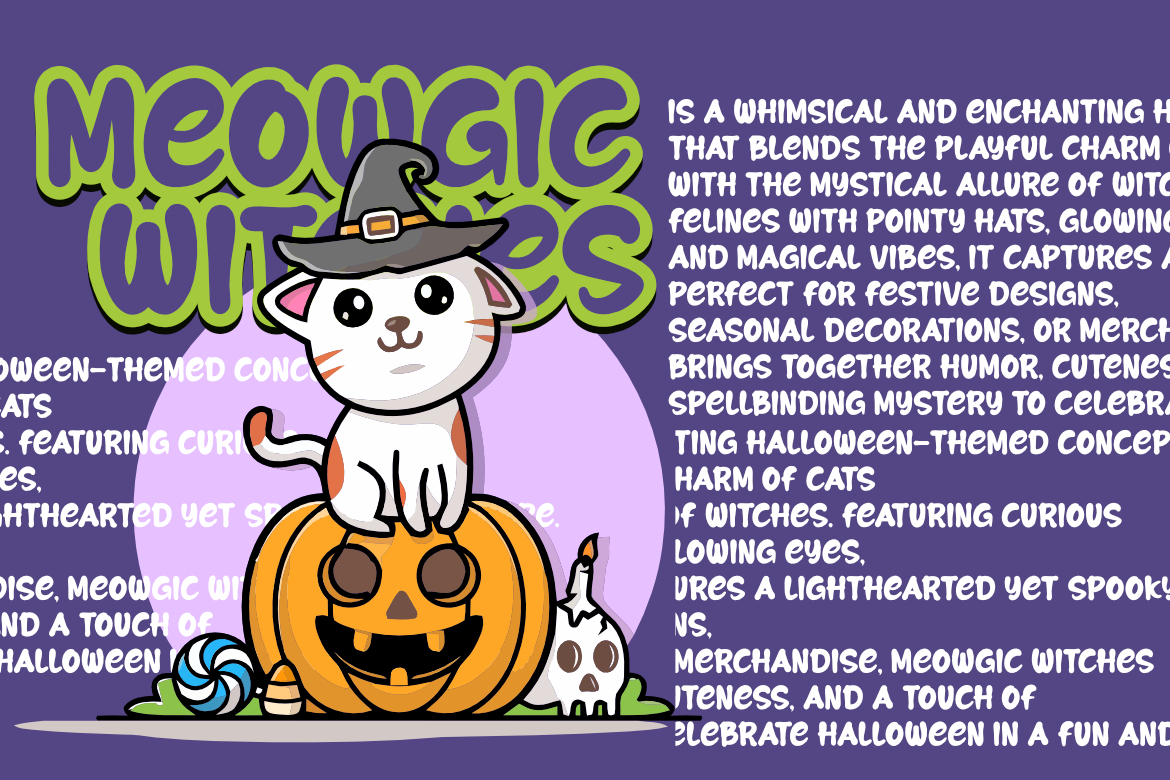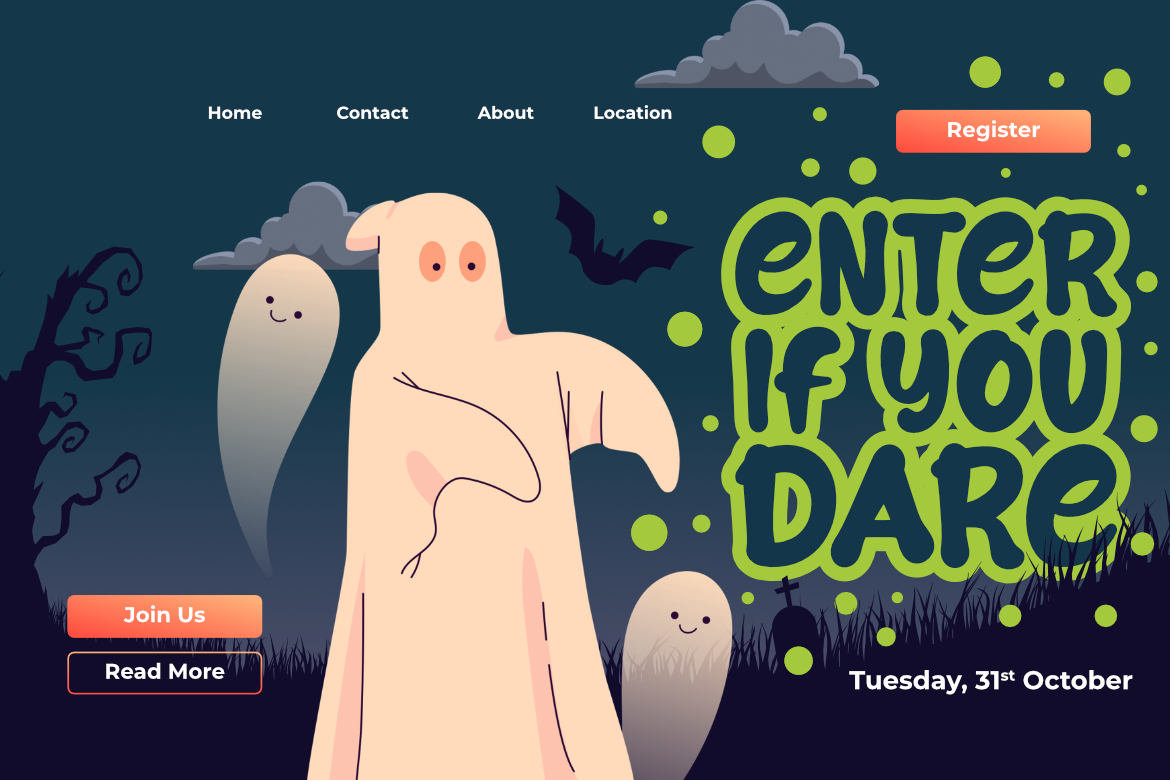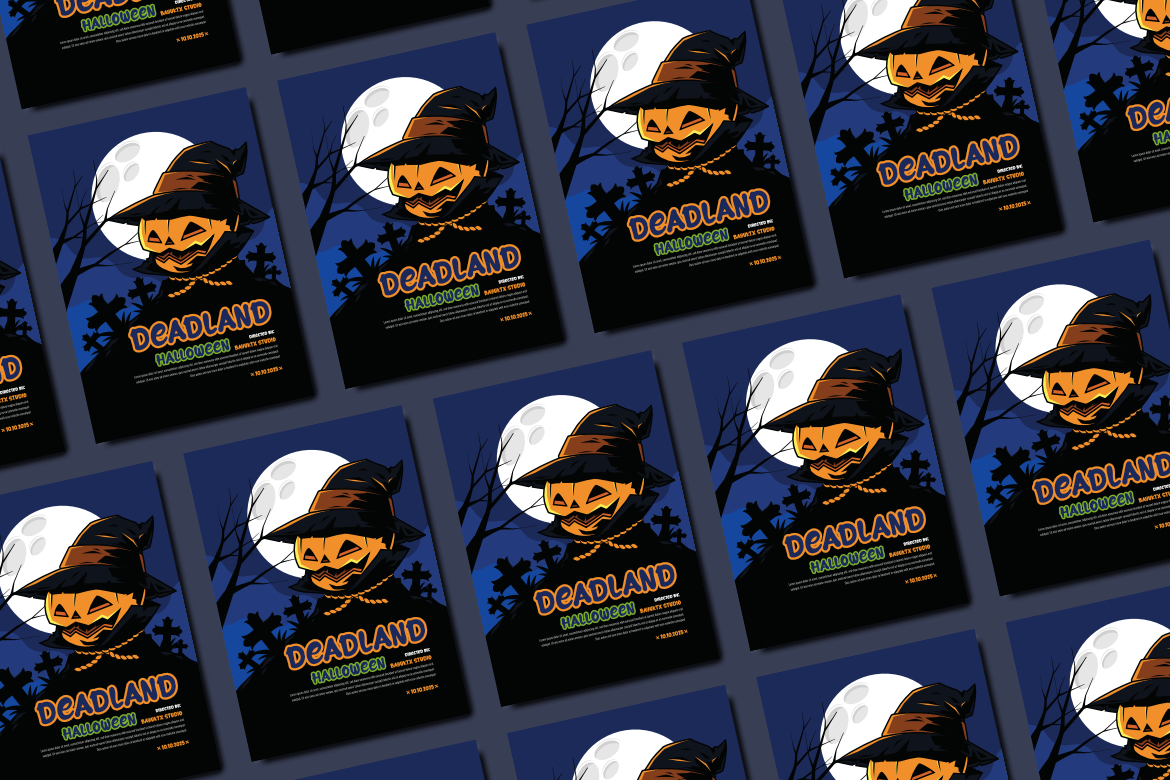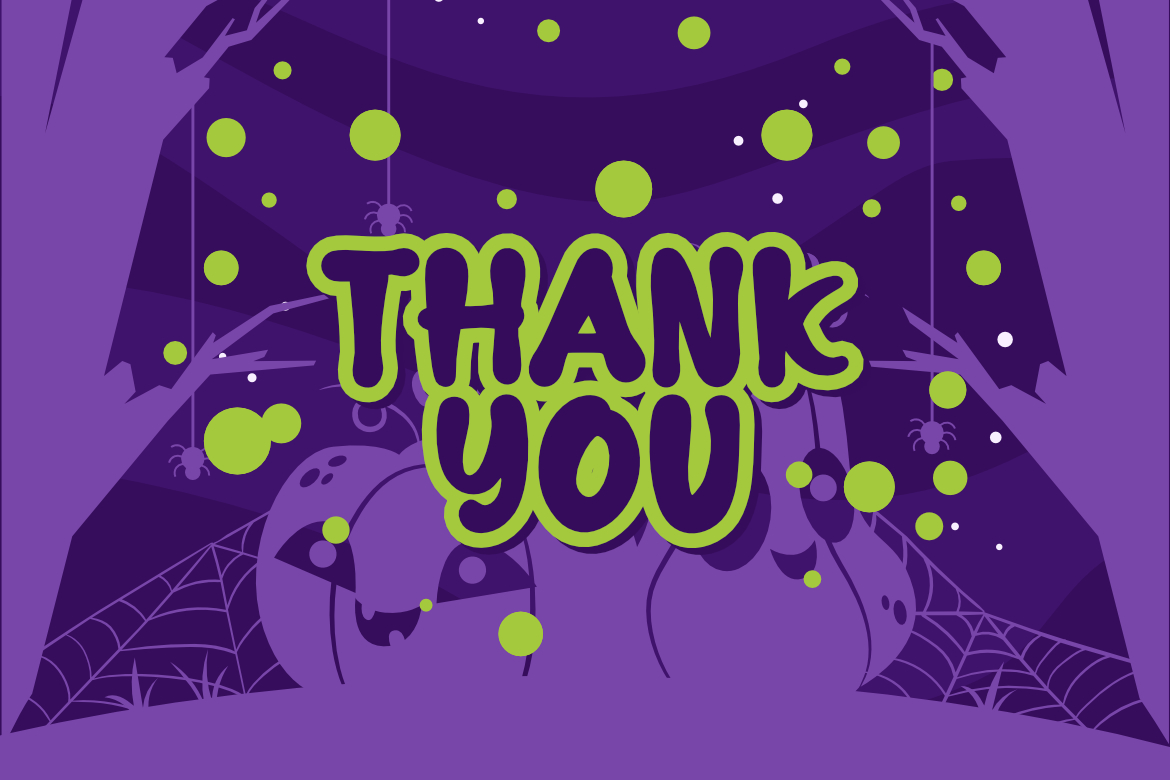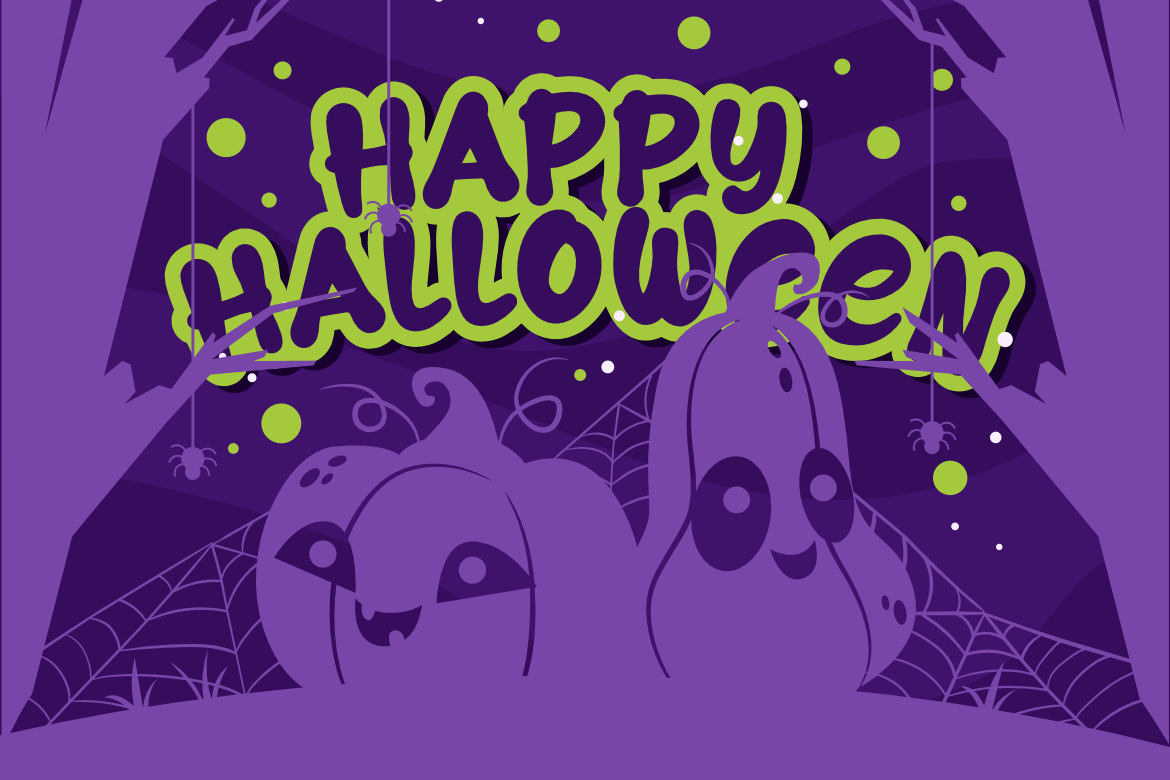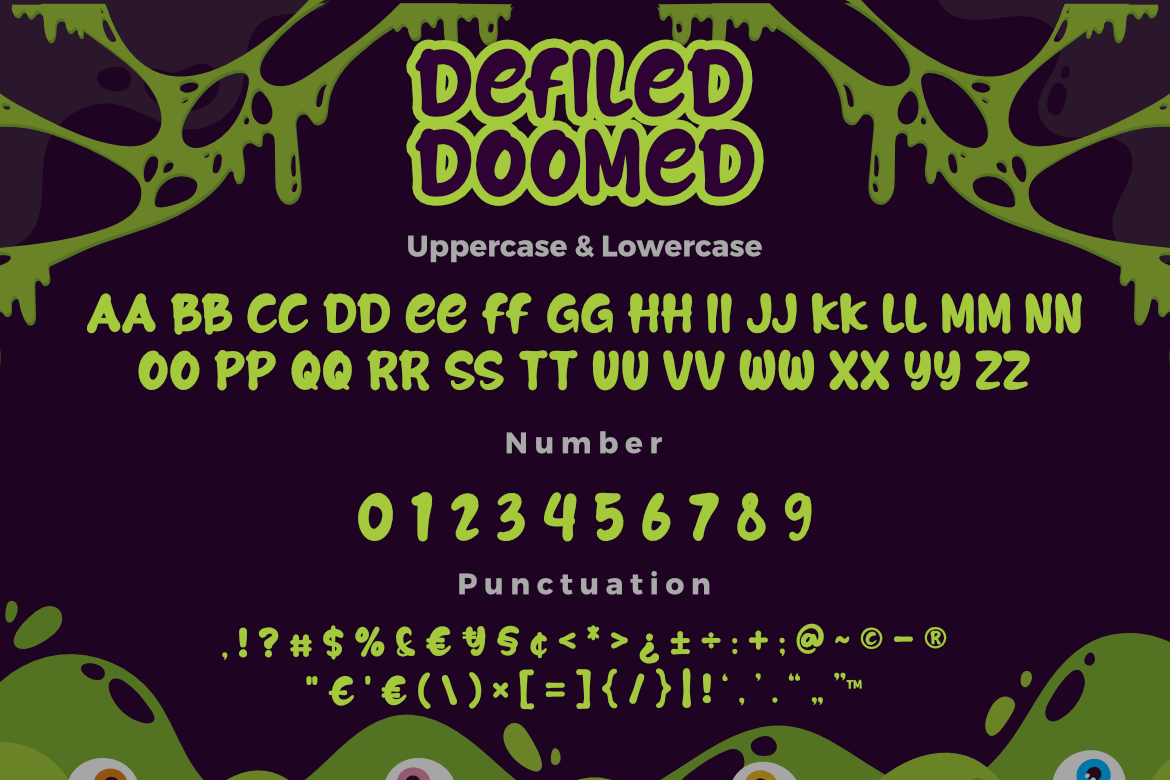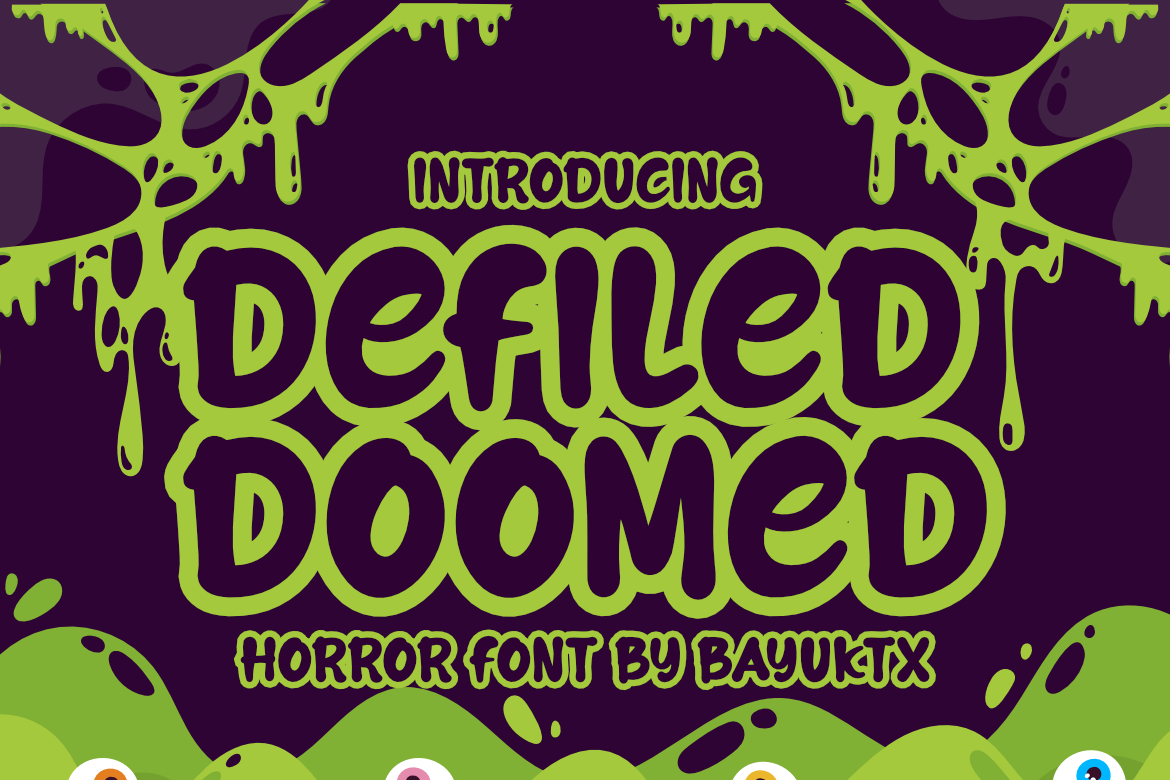
Defiled Doomed a New Horror Font
**Defiled Doomed – Horror Display Font**
Defiled Doomed is a bold and creepy horror display font that drips with eerie vibes and dark energy. Designed with thick, rounded letters and slime-inspired details, this typeface perfectly captures the essence of spooky and thrilling themes. Its playful yet terrifying look makes it stand out in Halloween designs, horror posters, scary game titles, and themed merchandise.
**Key Features :**
* Uppercase & Lowercase Letters
* Numerals & Punctuation
With _Defiled Doomed a Horror Display Font,_ your designs will scream with personality—perfectly blending fun and fear to create visuals that are both chilling and unforgettable.